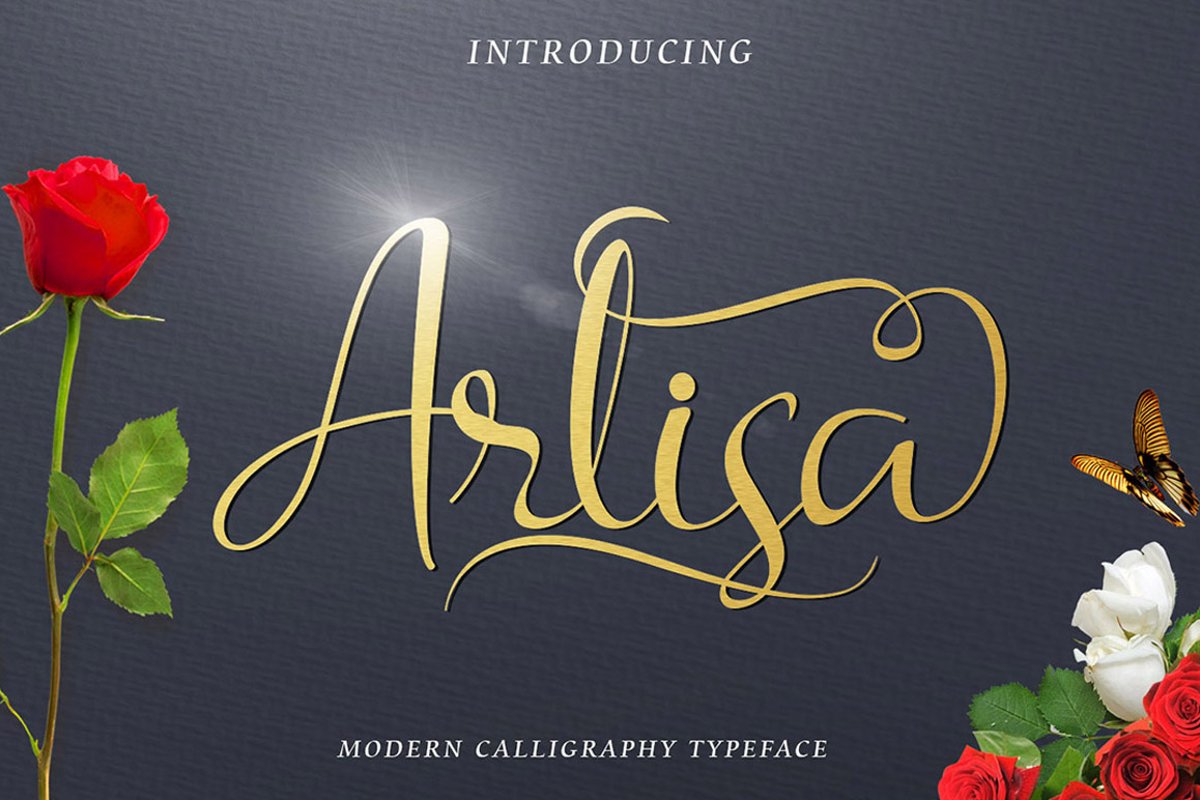
Arlisa Script + Bonus
Arlisa Script is a beautiful handmade script font, modern calligraphy & fresh typeface. Arlisa Script is suitable for logos, branding, greeting cards, signatures, posters and any design that you create.
Arlisa Script Features:
- UPPERCASE
- lowercase
- numeral
- punctuation
- PUA Encoded
- Stylistic Alternates